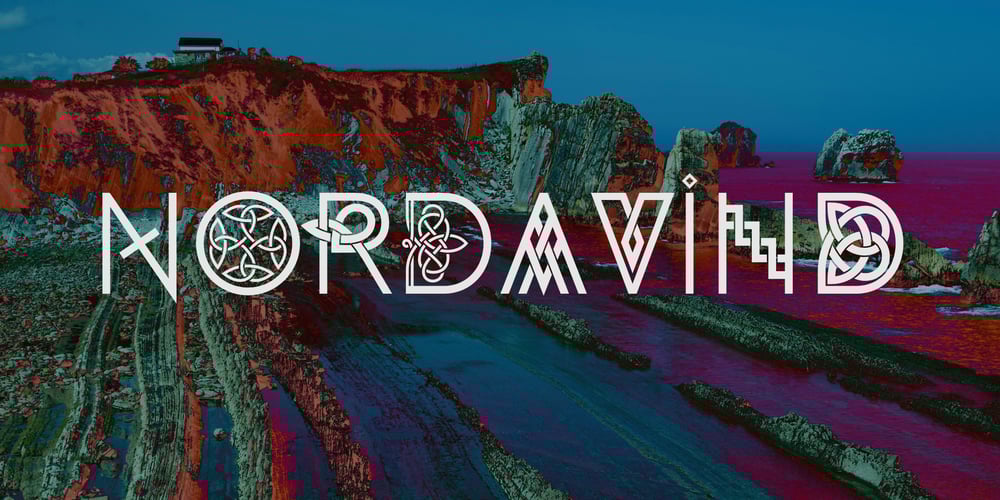
Nordavind
Nordavind font
Nordavind Font Family was designed by Lukyan Turetskyy and published by 2D Typo. Nordavind contains 1 styles and family package options. The design of this font came from the inspiration by medieval handwritten books. The shapes of symbols have been partly taken from the prototype, but mostly reflect my fantasies over the Keltic themes. The font is distinguished by combination of medieval esthetics with the forms of contemporary geometrical grotesque. The font comes with a lot of alternatives and discreet ligatures that can be used to create unique combination of letters.–Uppercase